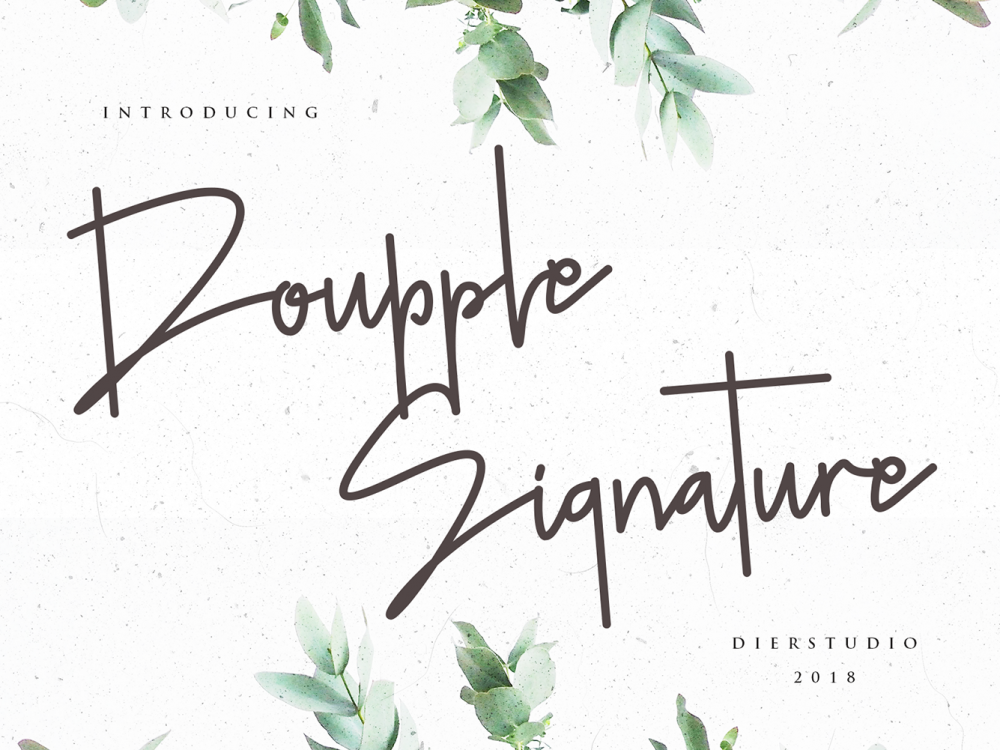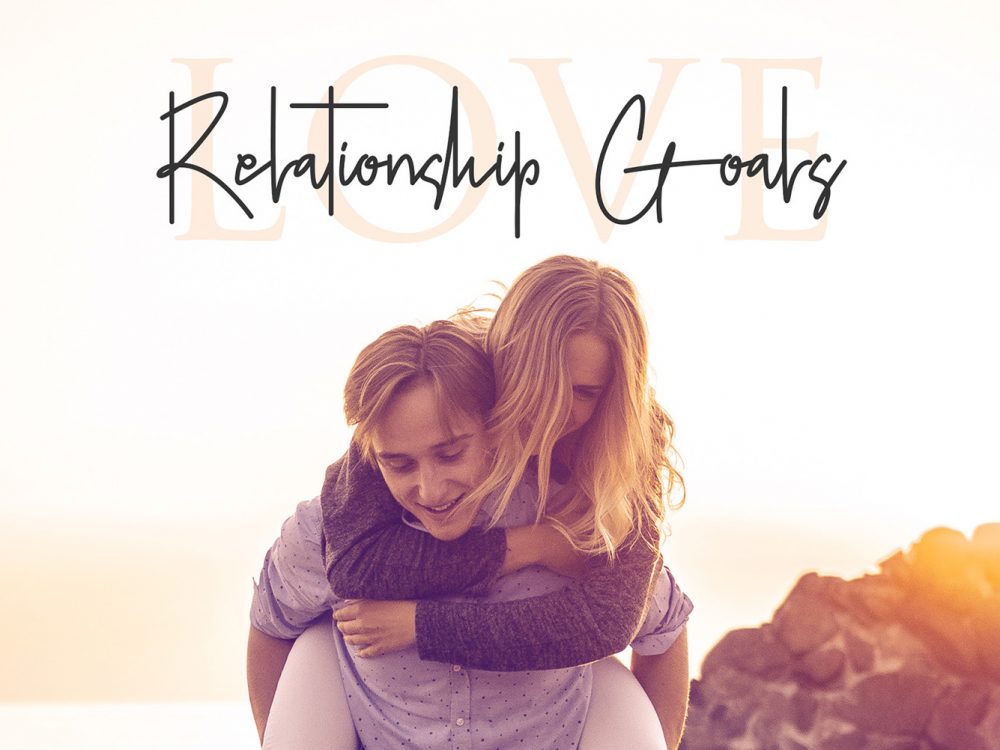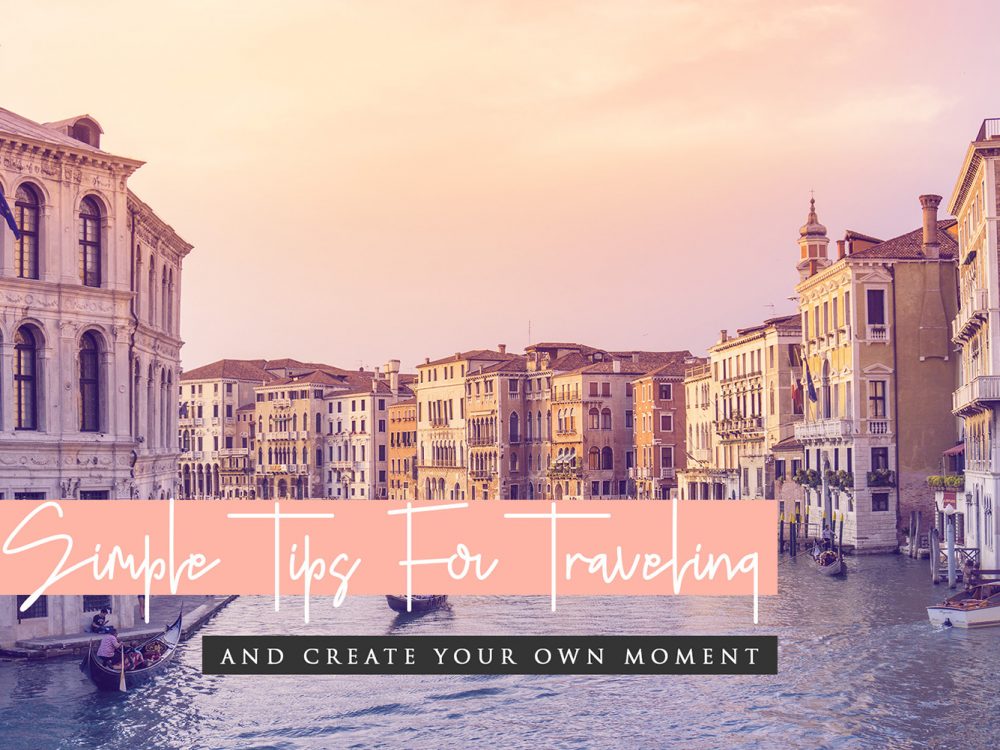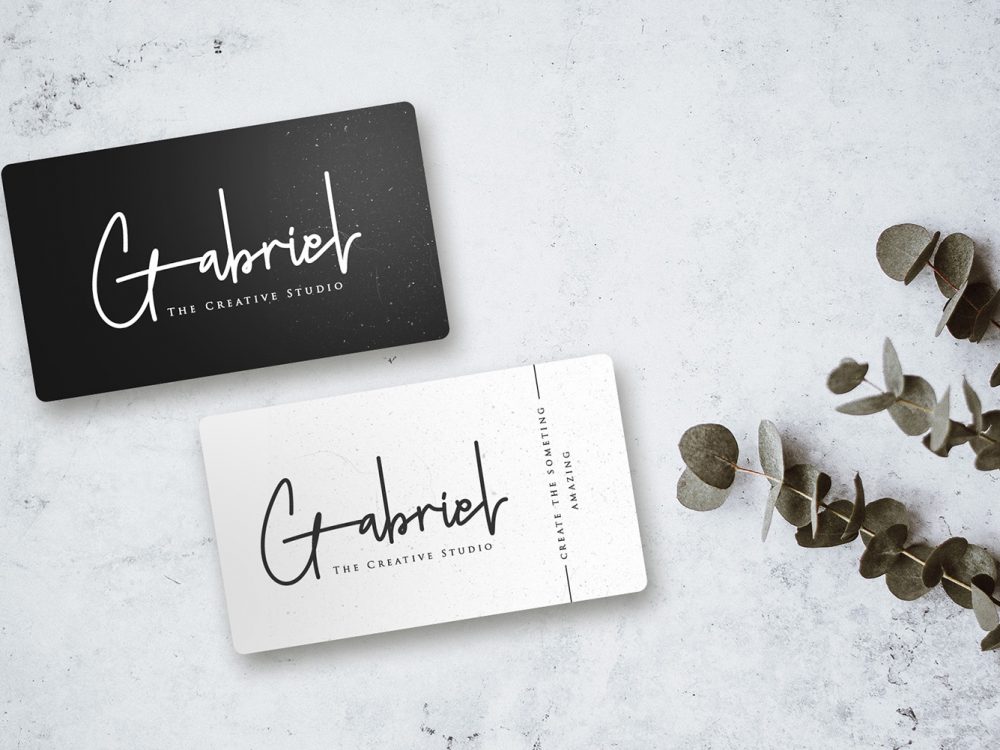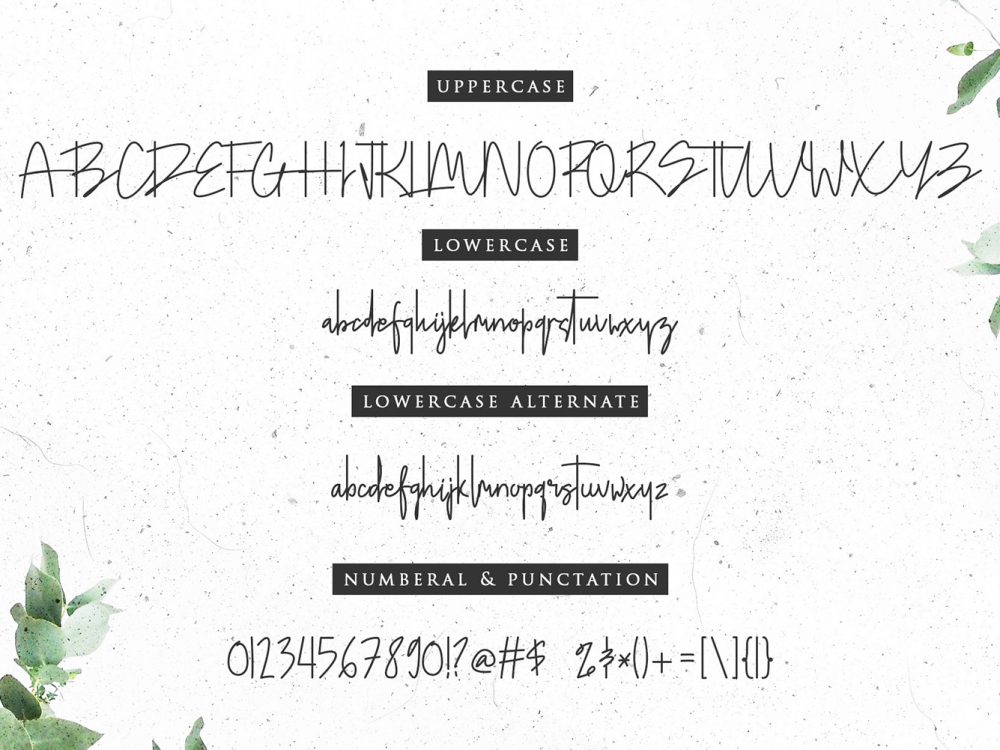
Doupple Signature Free Font
Doupple Signature Free Font is an interesting modern handwritten font with an elegant and interesting style. This font is very suitable for creating various projects that require a script font. Use this font to create memorable romantic posters, wedding invitations, greeting cards, branding, flyers, t-shirt and pillow prints, and more. Improve your professional level using this font. If you like it don’t forget to check out the full version.